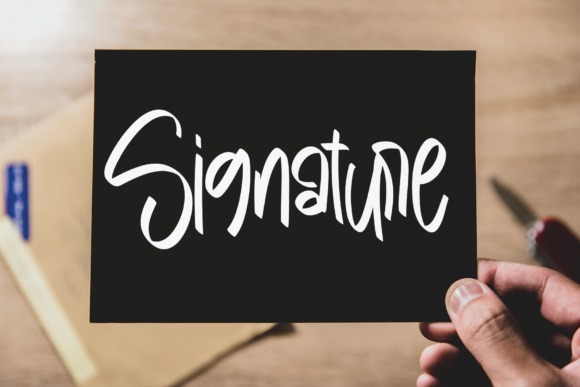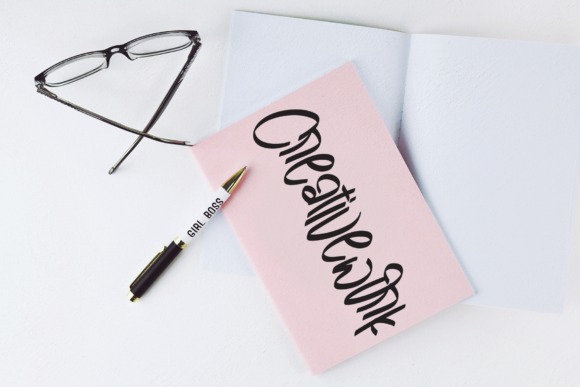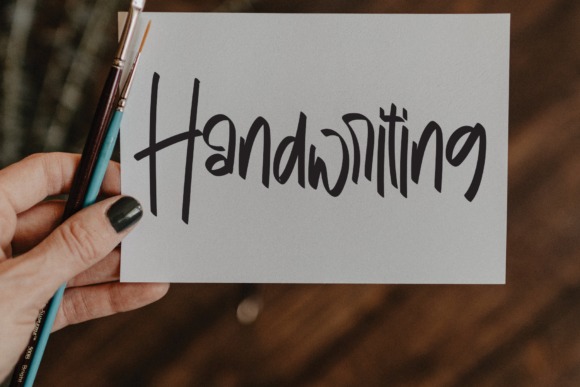
Friendlove Font
Friendlove Script Font
This is a whimsical script font with a relaxed theme, featuring a lovely style. No matter the topic, this font will be an incredible asset to your fonts’ library, as it has the potential to elevate any creation.